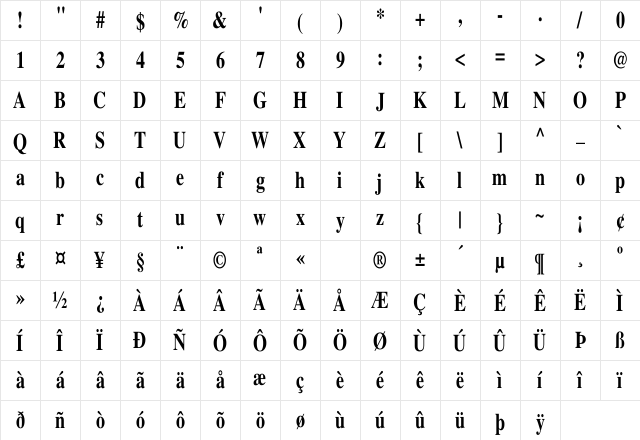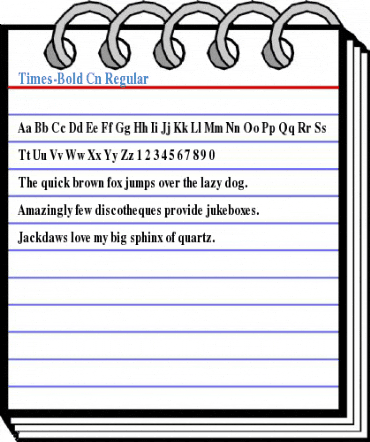
Complete Times-Bold Cn Regular glyph index. Displaying only characters natively supported by Times-Bold Cn Regular font.
Times-Bold Cn is a composed and adaptable typeface that performs quietly and consistently across a wide range of design contexts. Its bold stroke weight gives it real presence on the page.
Pro Tip: Use Times-Bold Cn in both headline and body roles to test its range before committing to a single application.